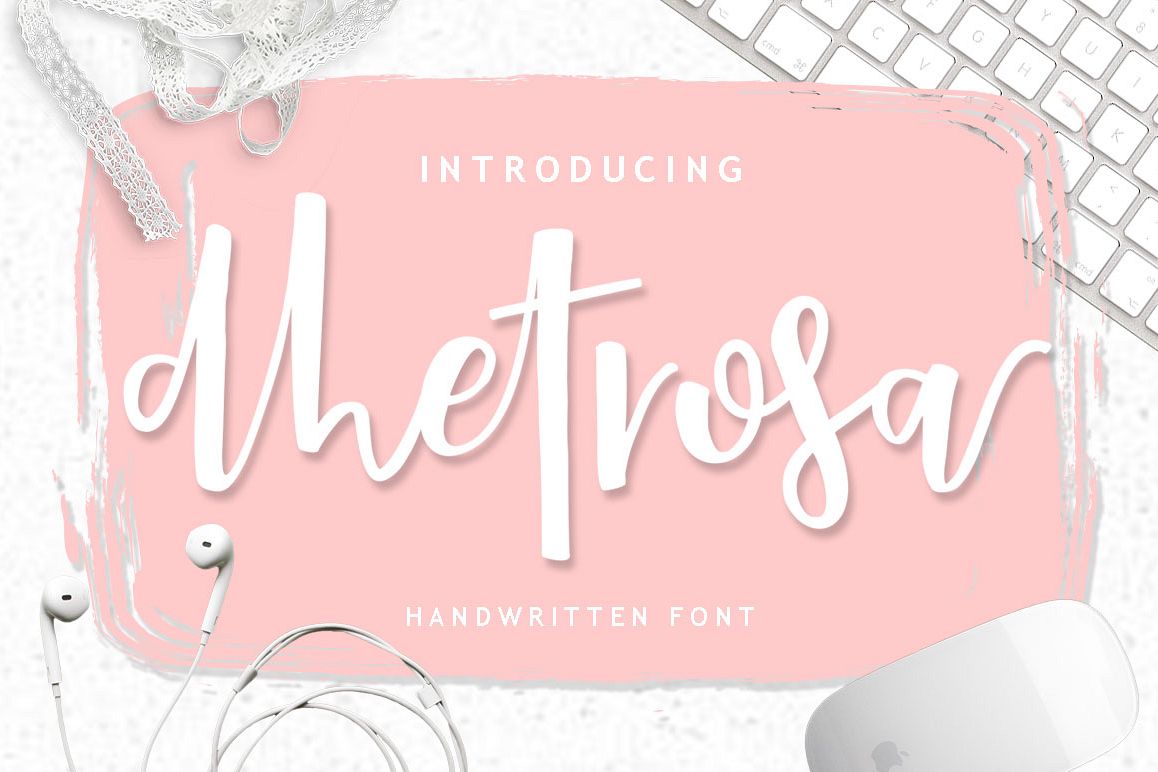
Dhetrosa Script
The Dhetrosa script is a brush-and-inked, hand-made font that is irregular. Contains a complete set of lowercase, uppercase, alternative, ligature, punctuation, numbers, and numbers. Dhetrosa Script relies on a lot of ligature to enhance the desired writing.
These fonts are ideal for indoor use, such as blog headers, posters, wedding elements, t-shirts, clothing, cover books, business cards, greeting cards, brand images, merchandise, invitations and many more quotes.